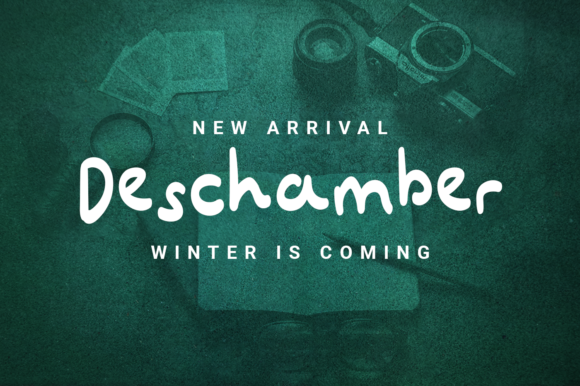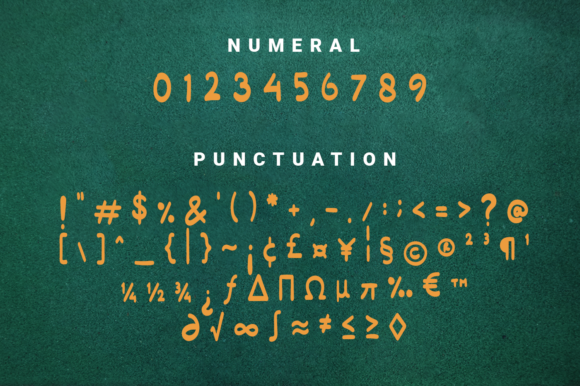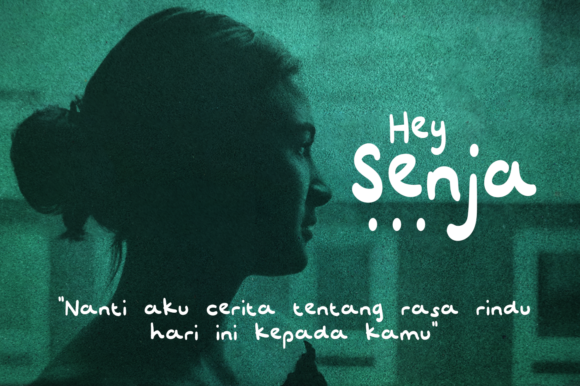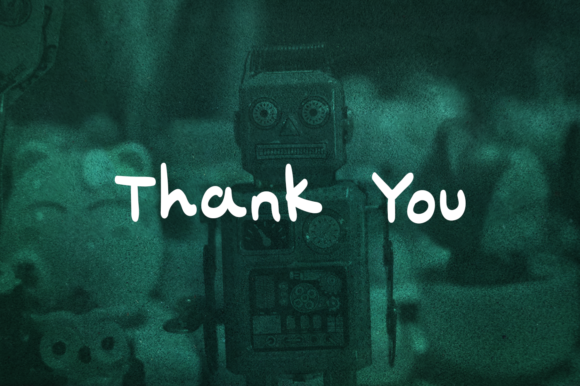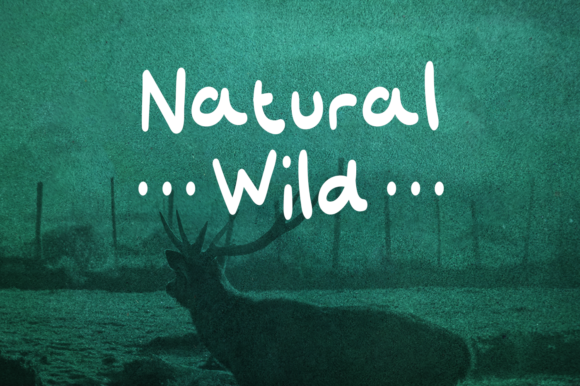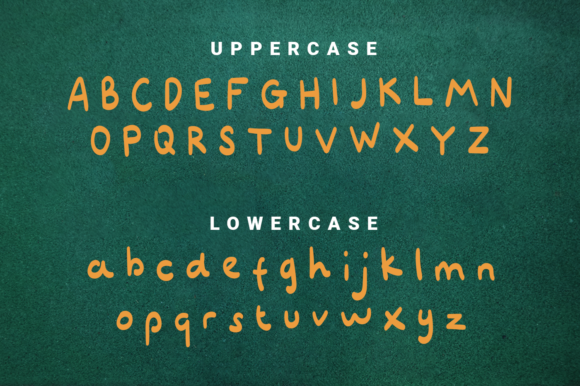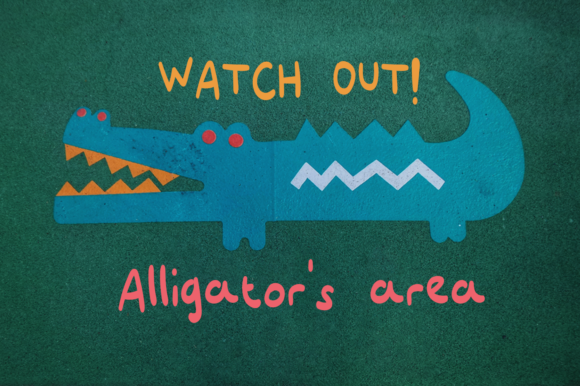
Deschamber Font
About Deschamber Font
Deschamber is an equally natural and friendly handwritten font that will turn any design idea into a true standout.